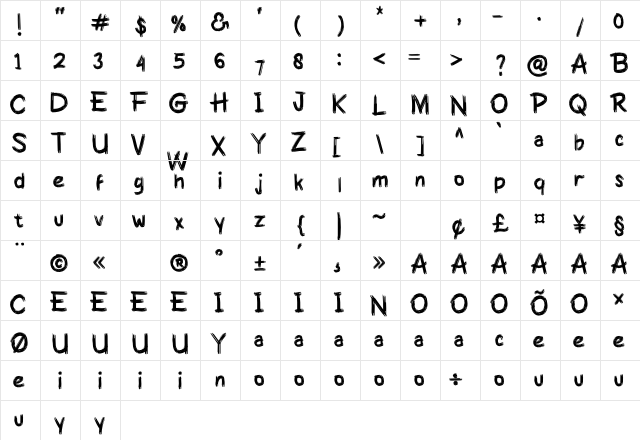
Rawyfidemo Regular
| Foundry | rozi |
| Designer | rozi |
Design Context for Rawyfidemo Typeface
Rawyfidemo is a composed and adaptable typeface that performs quietly and consistently across a wide range of design contexts.